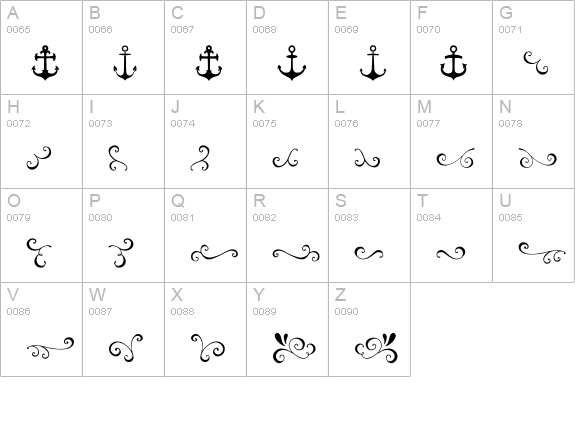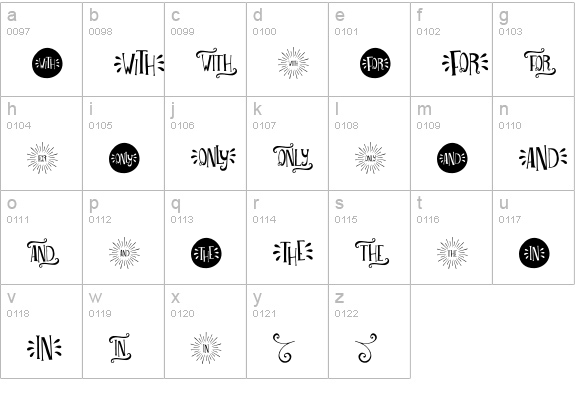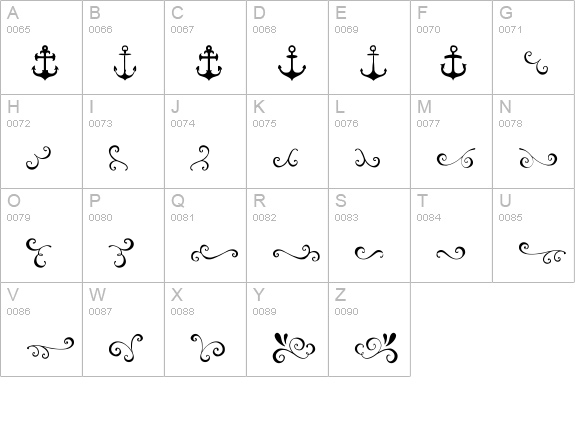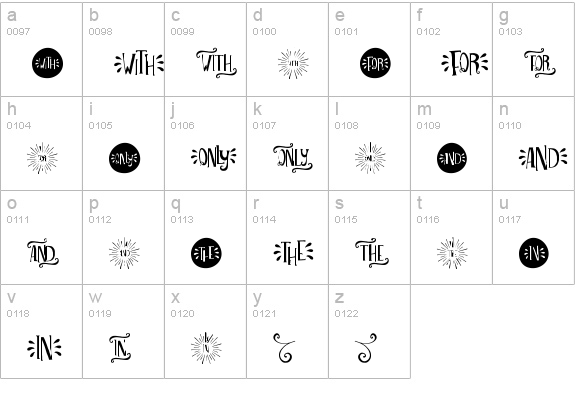
Seaworthy Extras Font Details
Seaworthy Extras font is a versatile and unique typeface that adds a touch of nautical charm to any design project. With its intricate details and intricate maritime-inspired elements, this font is perfect for creating eye-catching logos, posters, and invitations. The Seaworthy Extras font includes a variety of decorative elements such as anchors, ships, compasses, and more, allowing you to customize your designs with a seafaring flair. Best of all, Seaworthy Extras font is available for free download at FontsMarket.com. Whether you're a seasoned designer looking to add a little extra flair to your projects or a novice designer exploring new creative possibilities, Seaworthy Extras font is a must-have addition to your font collection. Download it today and set sail on a typography adventure like never before!